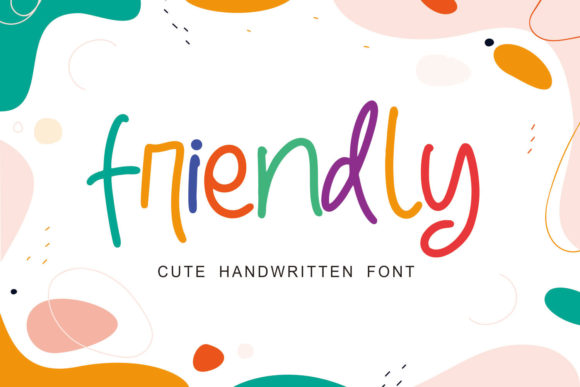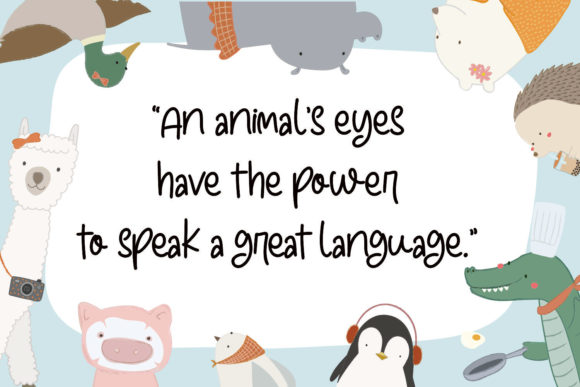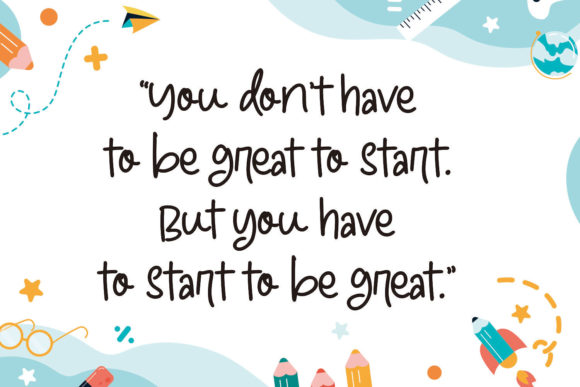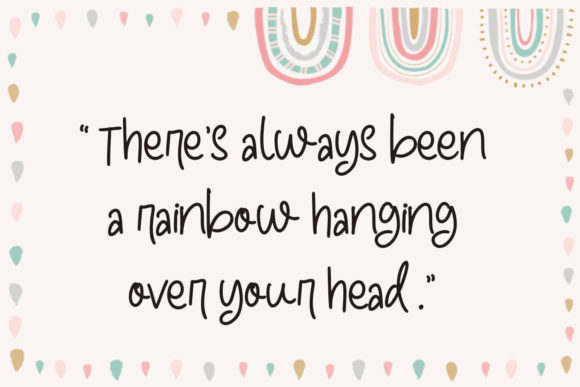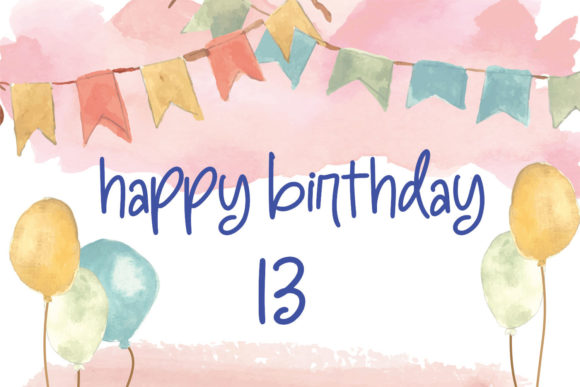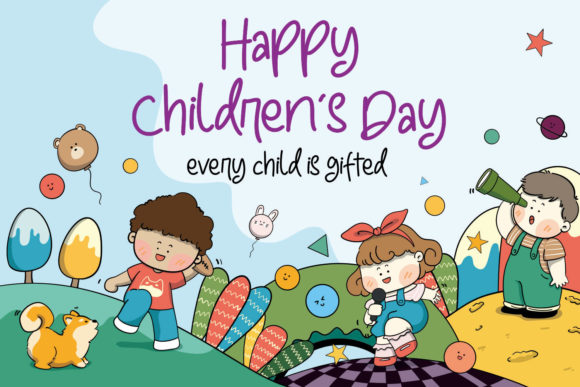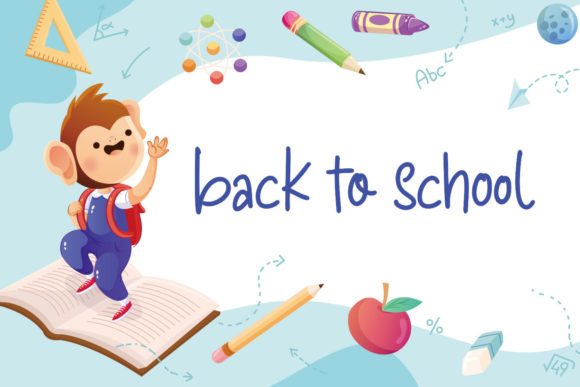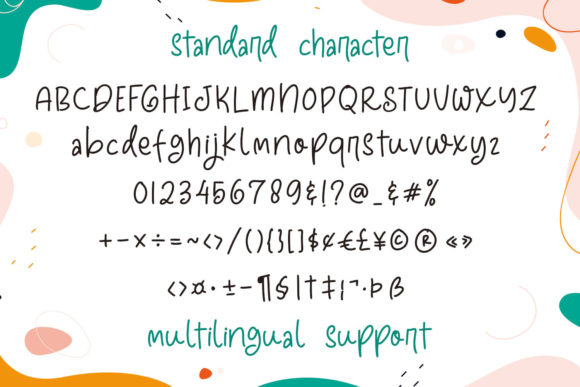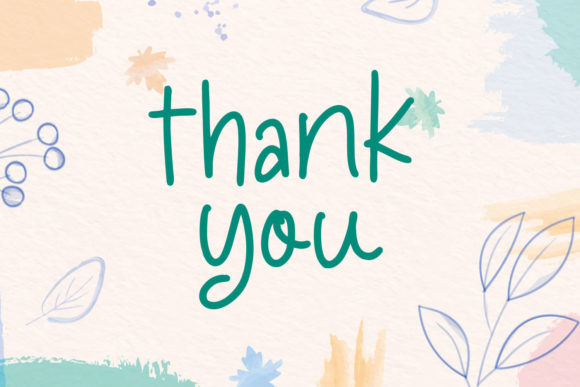
Friendly Font
About Friendly Font
Introducing Friendly – a charming and slender handwritten font that brings a delightful and endearing touch to your designs. This font’s unique style and versatile nature make it a fantastic choice for a wide range of creative projects, from cartoon-related designs to children’s games and beyond.
When applied to cartoon-related designs, Friendly instantly infuses a sense of whimsy and playfulness. Its thin lettered appearance adds a light and airy quality that complements the vibrant and dynamic nature of cartoons. Whether you’re creating characters, speech bubbles, or captions, the font’s cute and friendly demeanor enhances the overall visual appeal and adds an extra layer of charm.
In the realm of children’s games, Friendly becomes a captivating asset that engages young players and creates a sense of excitement. Its approachable and legible letterforms make it easy for kids to read and interact with the game’s content. From interactive menus to game instructions and scoreboards, the font’s thin and handwritten style adds a touch of magic that resonates with young audiences.
Beyond its specific applications, Friendly is a versatile font that can elevate a wide variety of creations. Whether you’re designing greeting cards, posters, social media graphics, or any project that could benefit from a lovely touch, this font proves to be an exceptional choice. Its ability to convey a sense of warmth and approachability makes it an excellent option for communicating messages that are heartfelt and sincere.
By adding Friendly to your fonts’ library, you open the door to a world of creative possibilities. Its cute and thin lettered design lends itself to a wide range of themes and aesthetics, making it a valuable asset for any designer seeking to infuse their work with a sense of charm and positivity. No matter the topic or project, Friendly is here to bring a smile to your creations and leave a lasting impression on your audience.